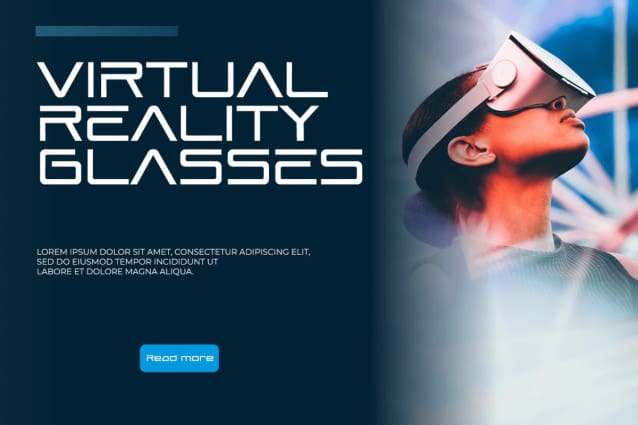
Madenz Font
Madenz Font a futuristic display font that is perfect for those who want to make a statement. This sans serif font is modern and sleek, making it a great choice for Instagram and YouTube posts. Its bold, clean lines are also ideal for movie titles and other digital displays.
What sets Madenz Font apart is its unique organic and natural style. The font comes with plenty of nature foliage and floral designs, adding a touch of natural beauty to any project. Whether you’re creating graphics for a natural health brand, an organic food company, or a sustainable fashion line, it is the perfect choice.
This versatile font is easy to read and can be customized to fit any project. Its clean lines make it ideal for modern designs, while its bold style adds a touch of drama and excitement. Whether you’re designing a logo, creating digital graphics, or designing a website, it is the perfect choice for any project that needs a touch of futuristic flair.